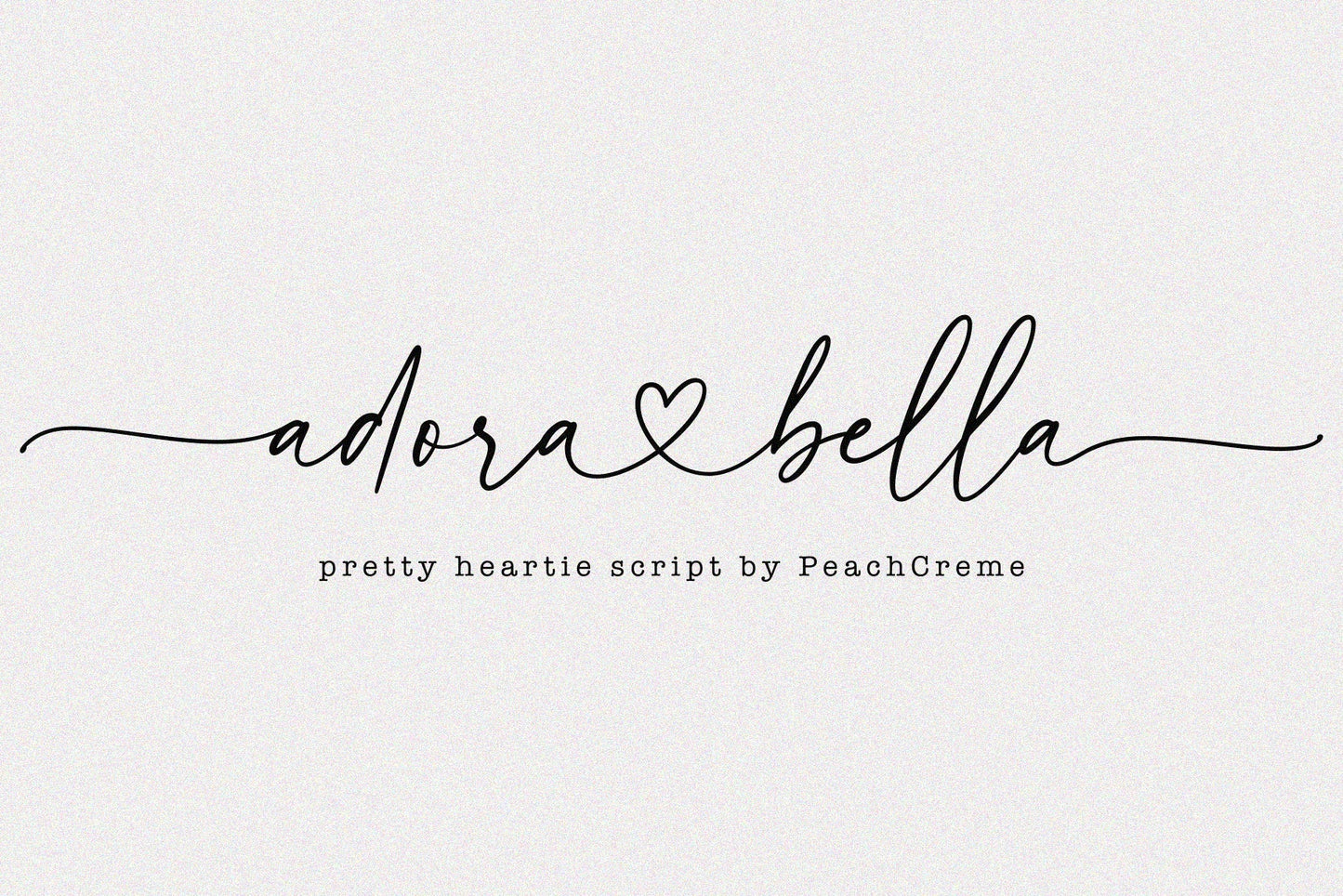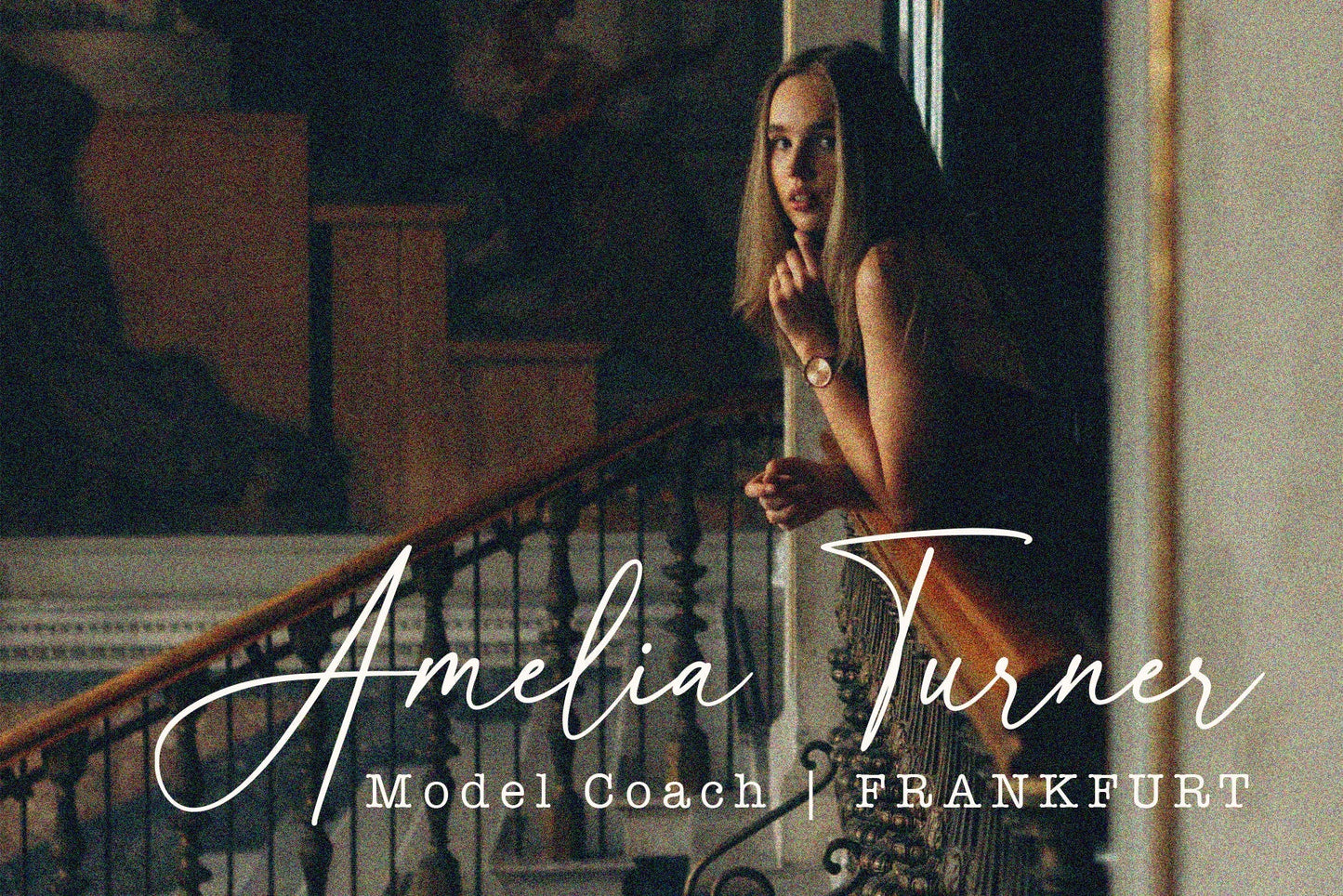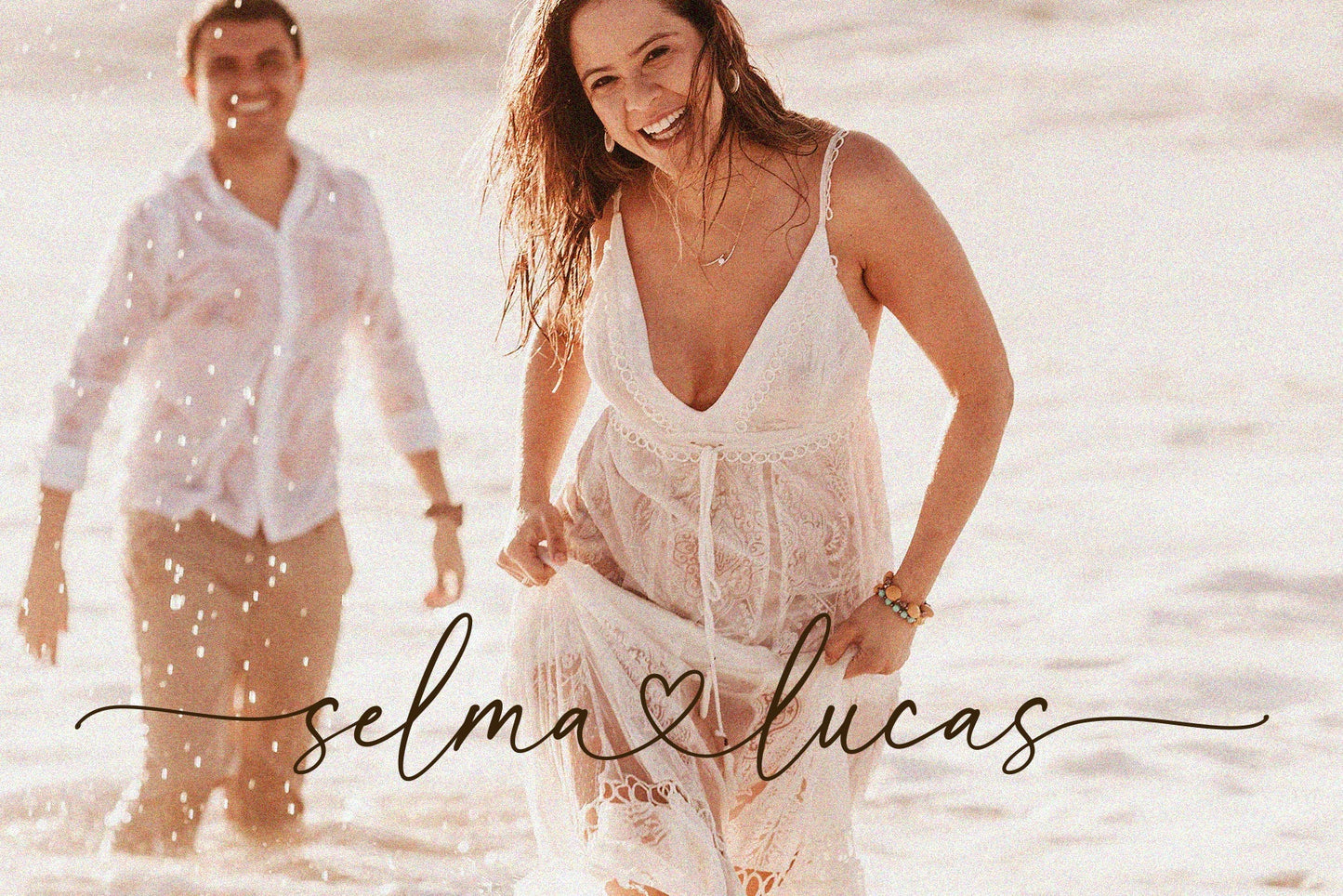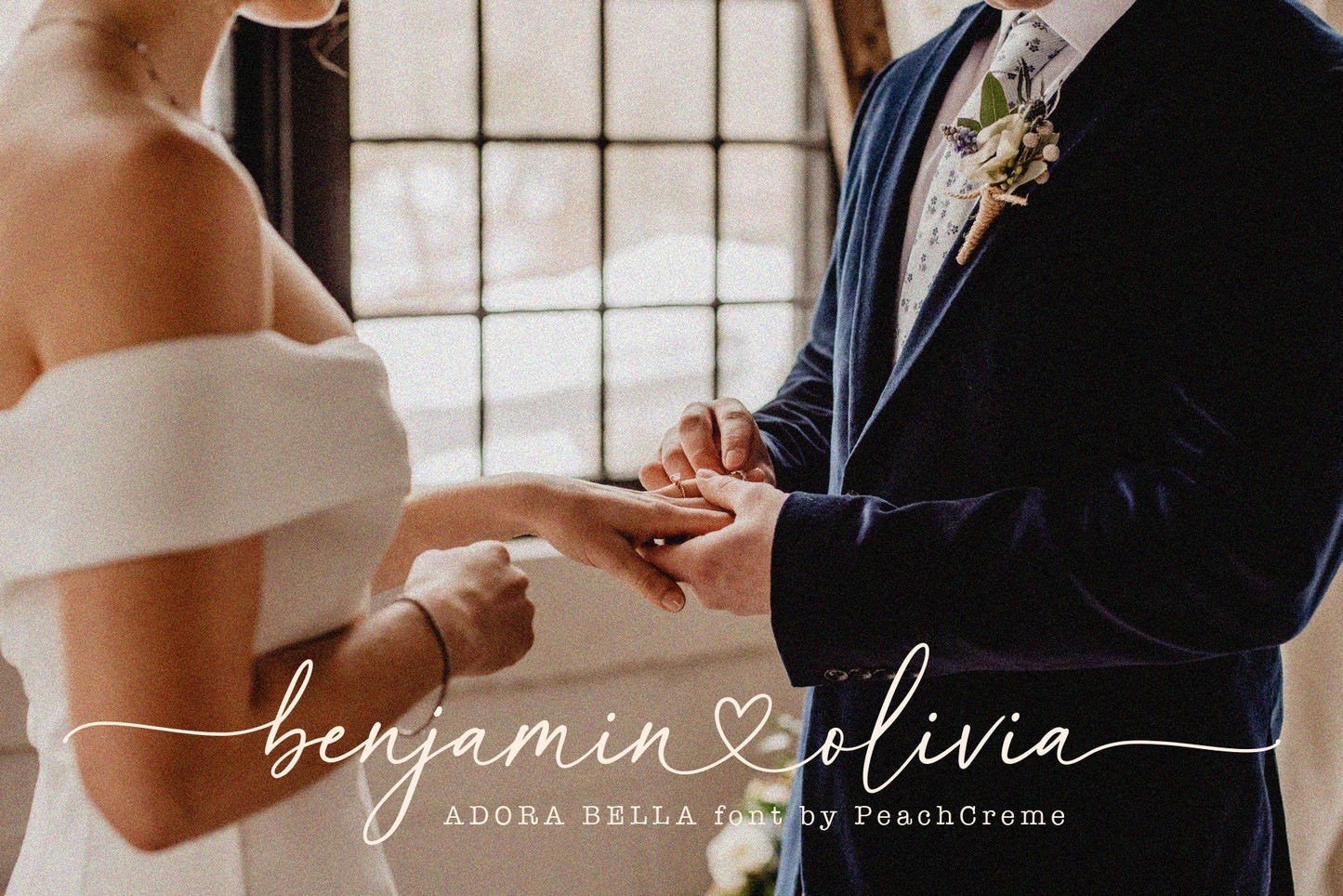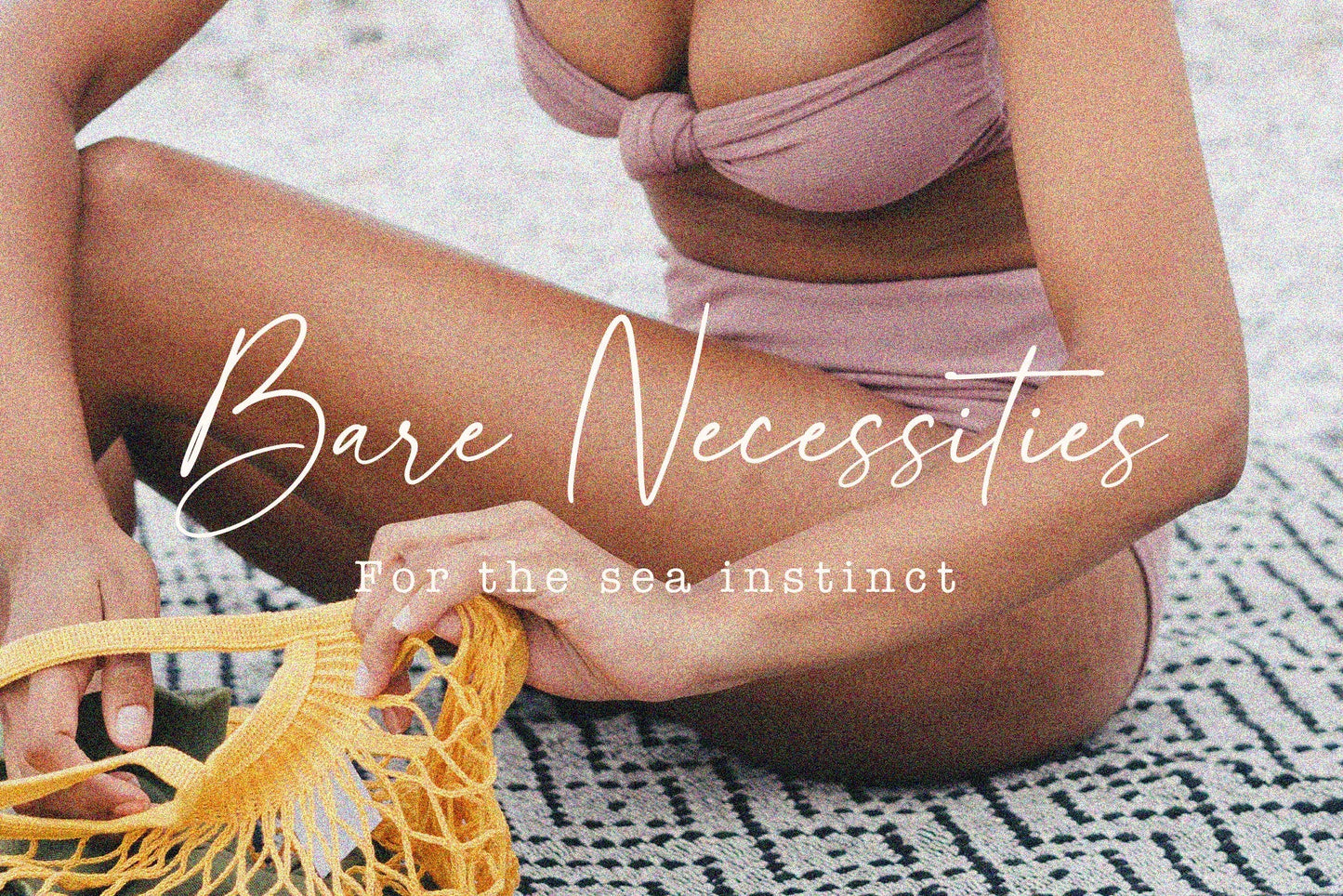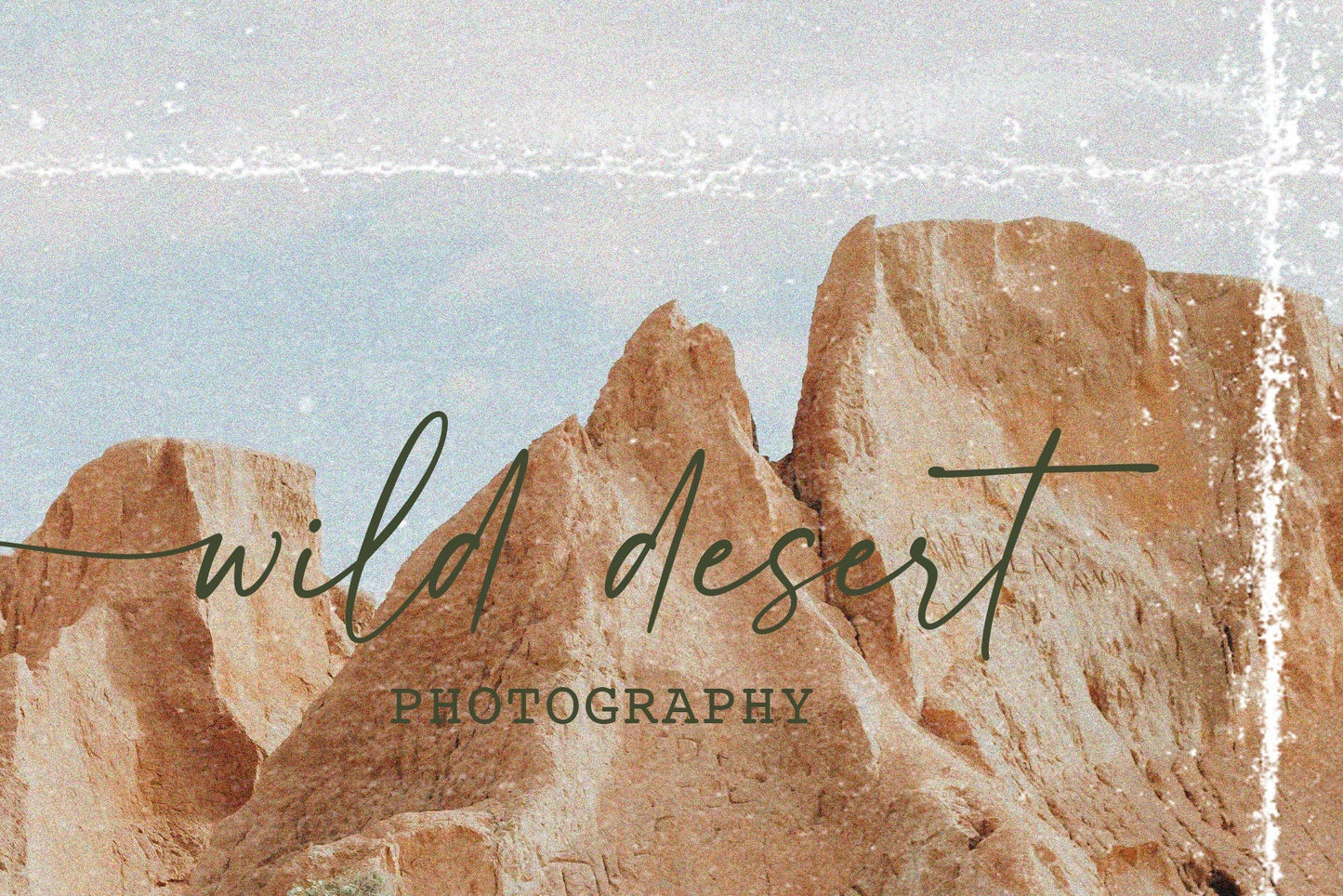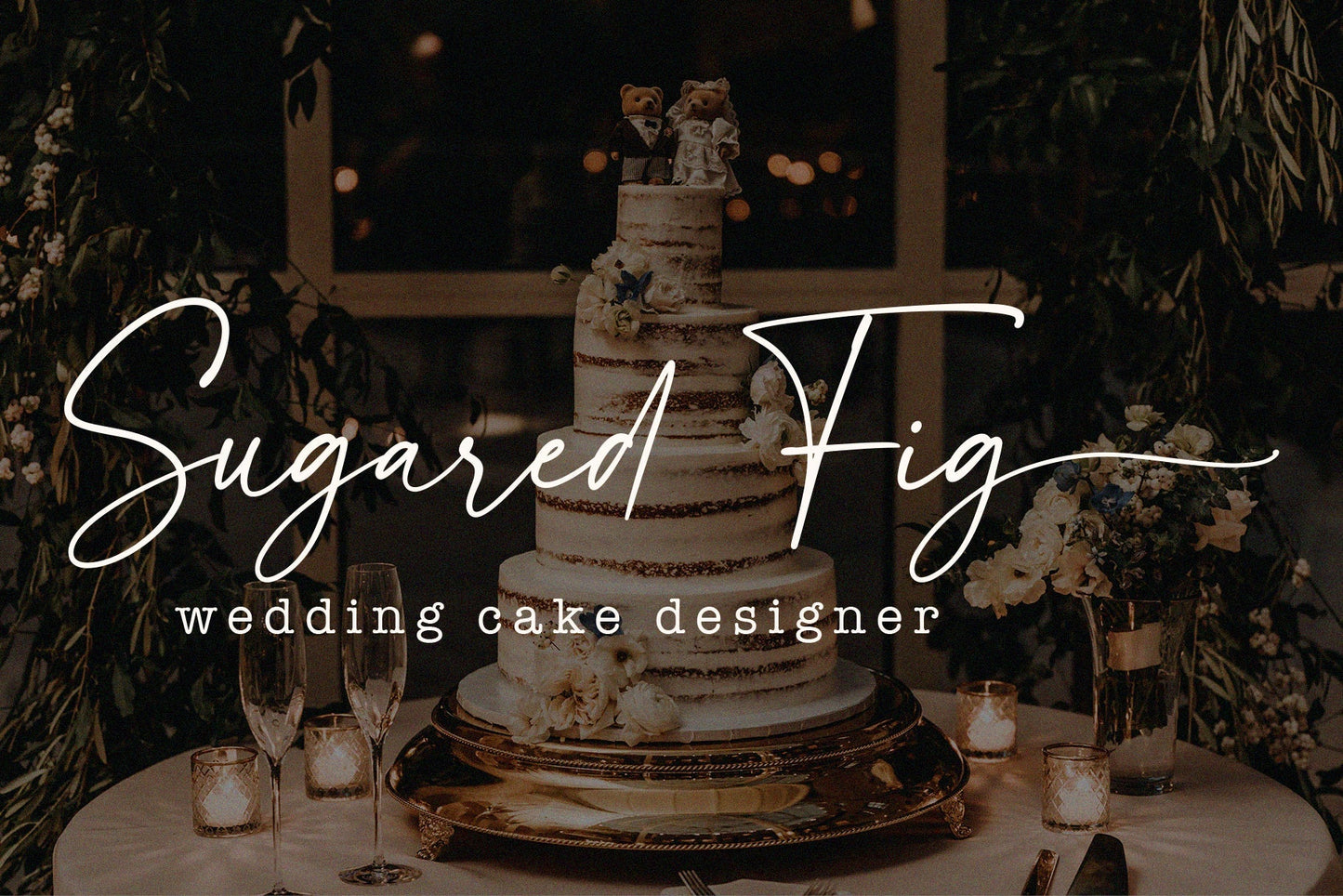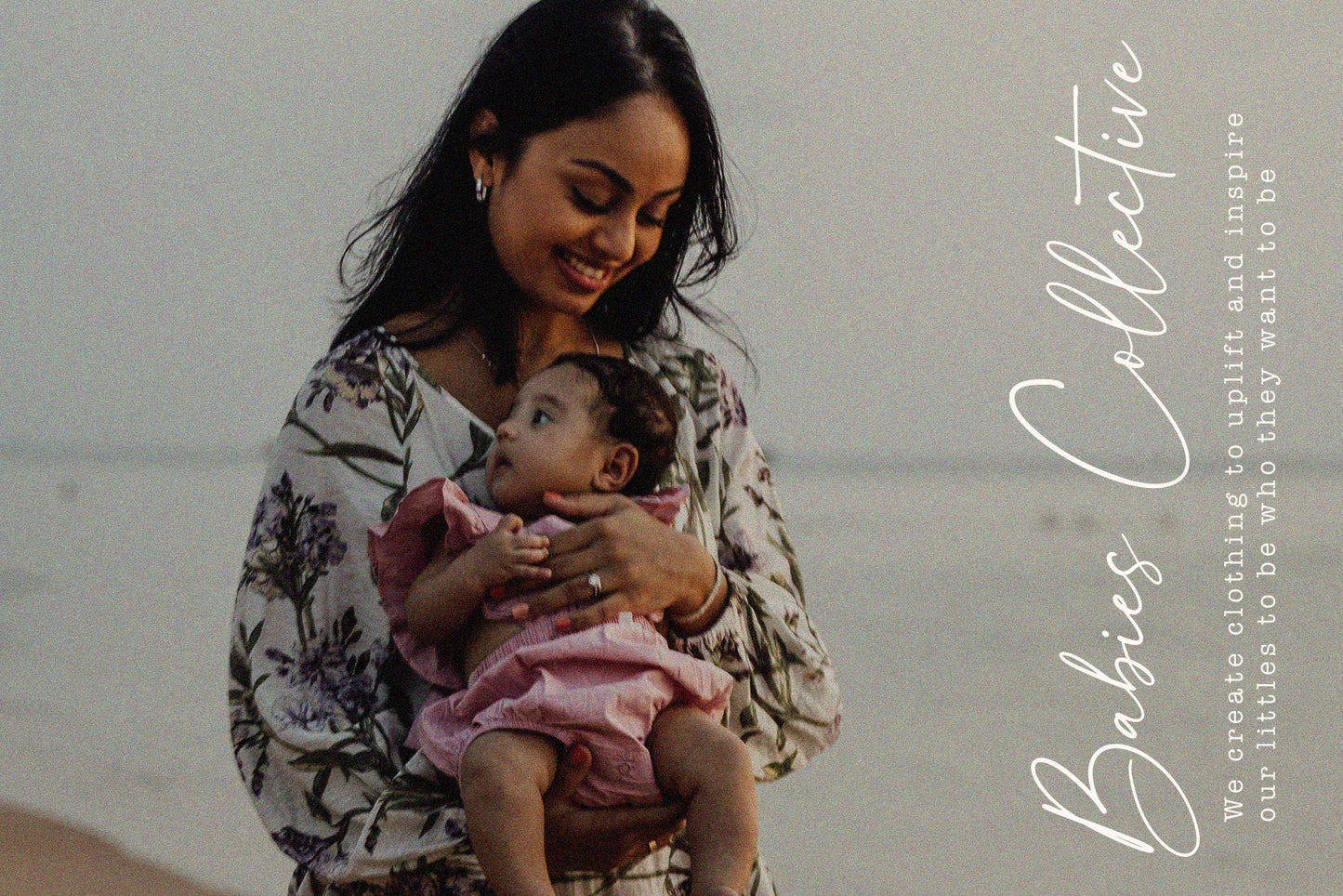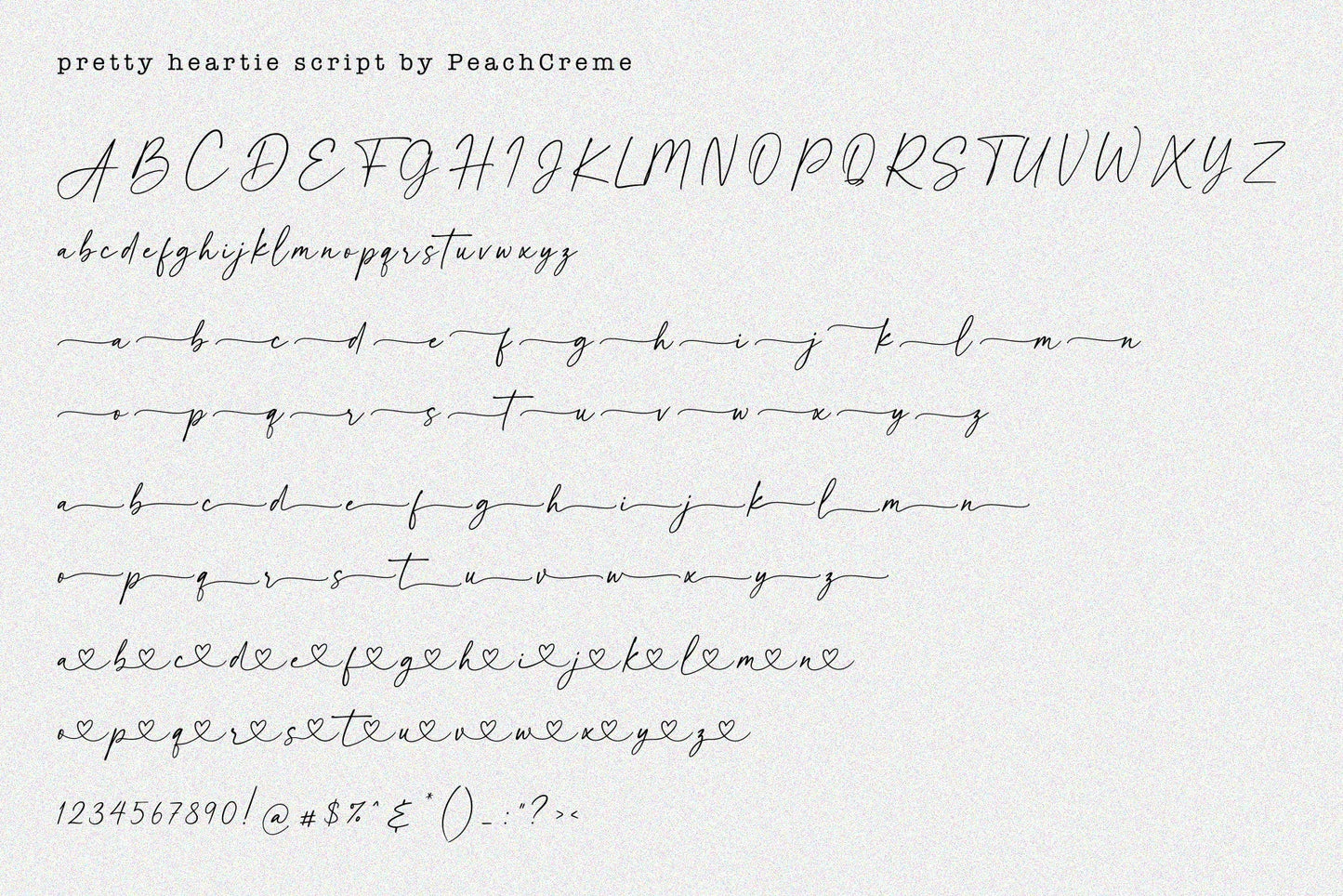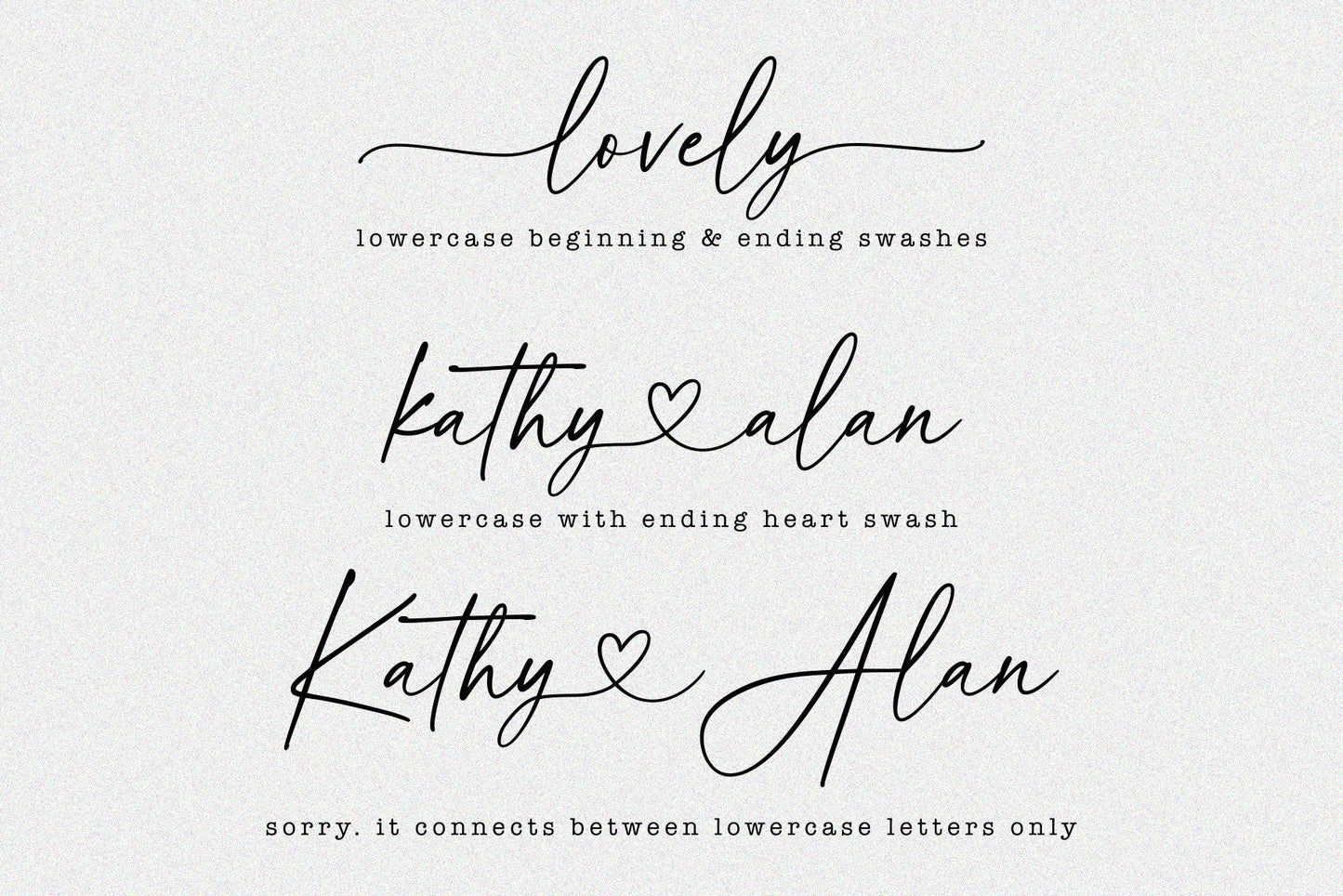
We're excited to unveil our new beautiful script font, "Adora Bella."
We're excited to unveil our new beautiful script font, "Adora Bella." "Adora Bella" was inspired by clean handwriting with a natural flow, and it features fabulous beginning and ending lowercase swashes as well as lowercase heart swashes. It is perfect for a wide range of designs, including wedding stationery, Instagram quotes, modern logos, packaging, websites, and more. You may join two words or letters together with the connecting heart swash; however, keep in mind that it works best with lowercase words.
Adora Bella // Modern Heart Font